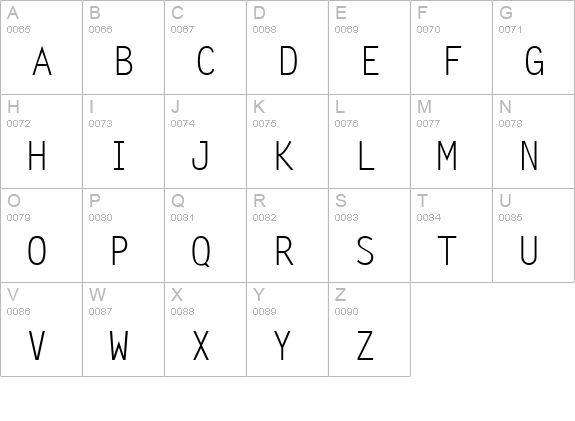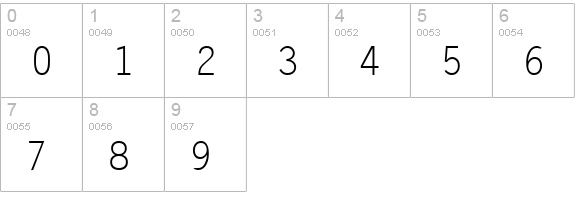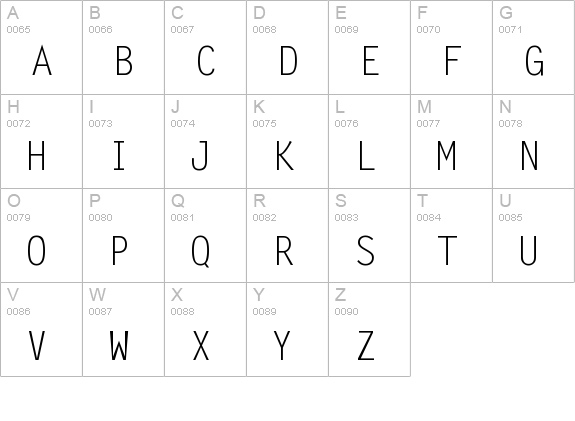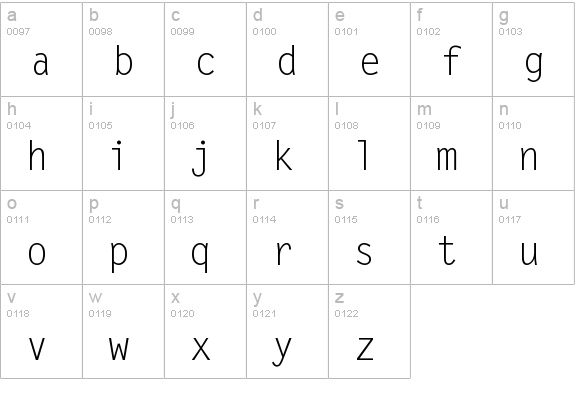
Letter Gothic is a classic and timeless font that exudes simplicity and clarity. With its distinctively uniform and monospaced letterforms, this font is perfect for conveying a sense of professionalism and efficiency. The clean lines, right angles, and equal spacing between characters give Letter Gothic a modern and no-nonsense appearance, making it an excellent choice for a wide range of design projects. From elegant logos and sleek corporate identities to clean and legible body text, this font can effortlessly enhance any visual composition. One of the greatest advantages of Letter Gothic is that it is freely available to download at FontsMarket.com. This means that designers, creatives, and font enthusiasts alike can easily access and utilize this versatile typeface without any financial burden. Whether you are a seasoned designer looking to add a classic touch to your creations or a beginner searching for a reliable and easily accessible font, Letter Gothic is an excellent choice. Its versatility, simplicity, and timeless appeal make it a valuable addition to any font library. So why wait? Visit FontsMarket.com now and experience the freedom of using Letter Gothic in your designs.